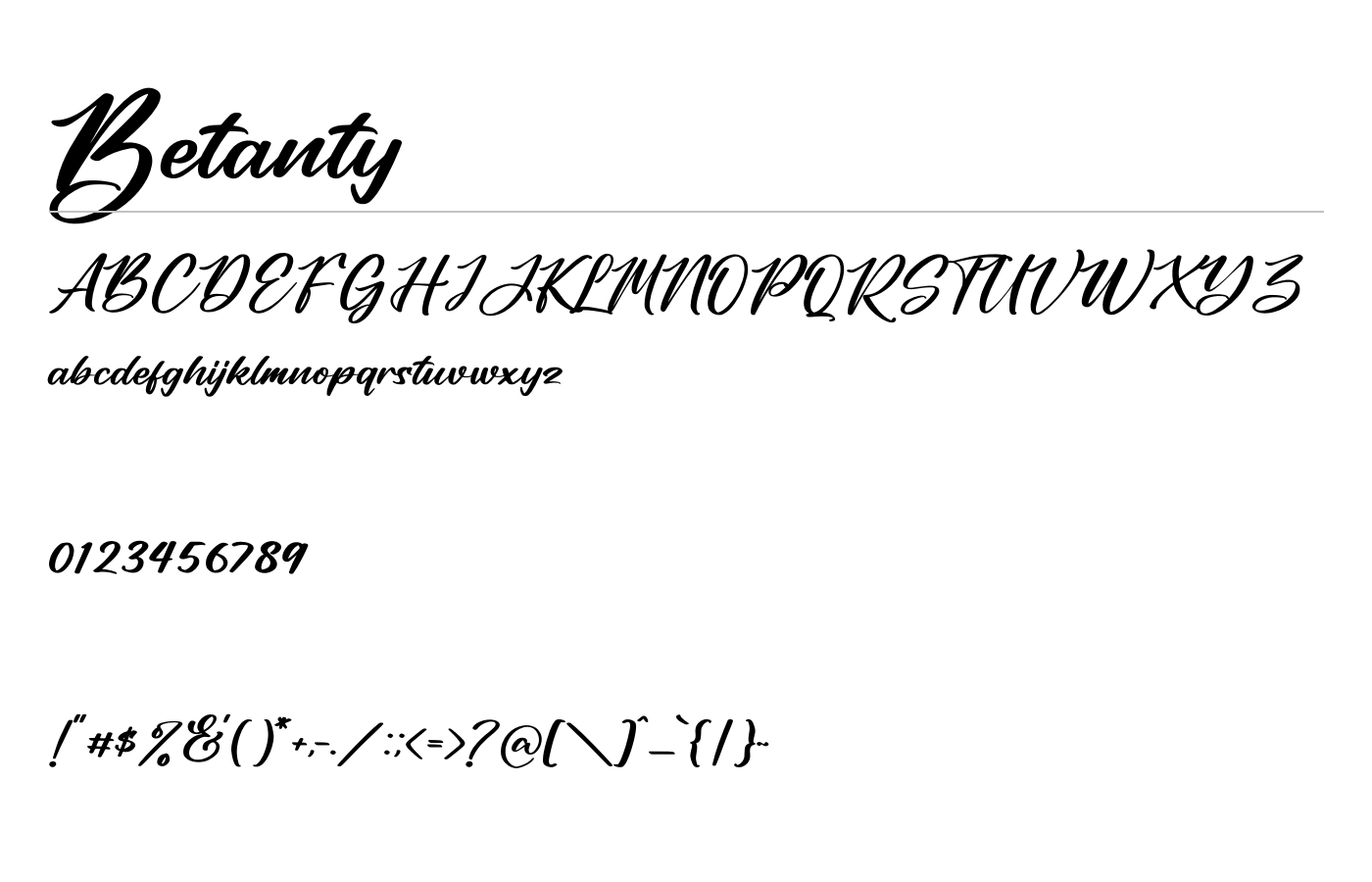
Betanty is an elegant script font with a smooth, flowing style and a moderate weight that balances readability with a personal touch. Its angled, slightly condensed letterforms and fluid connections give it a sophisticated yet approachable feel, making it ideal for branding, invitations, and stylish headlines that require a hint of charm and refinement. This font works beautifully where a handcrafted, classic script vibe is needed without sacrificing clarity.
Betanty Font
About Betanty Font
| Font family | Betanty Font |
| Designer | Nanang Jamaludin |